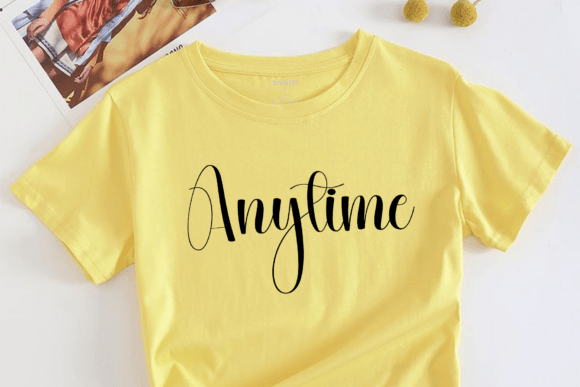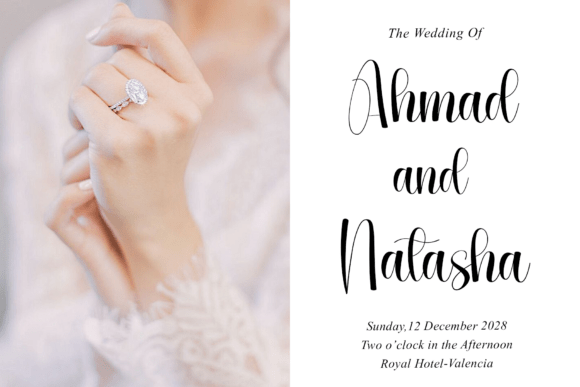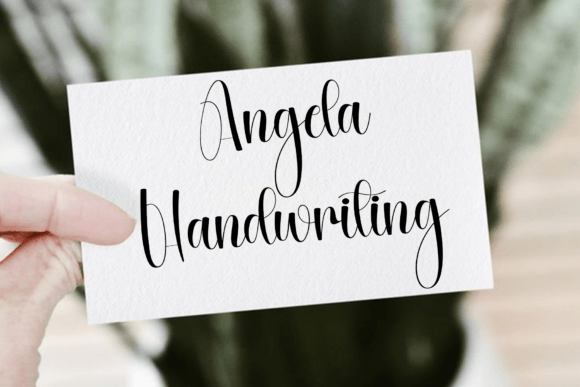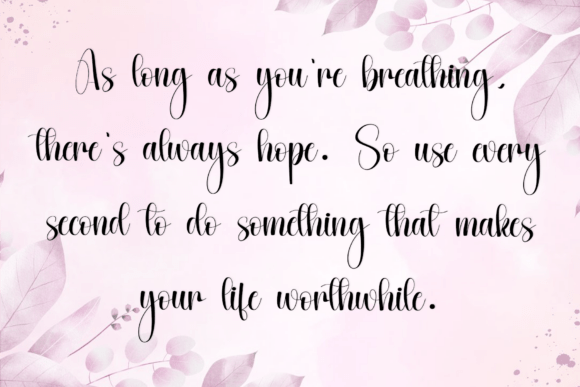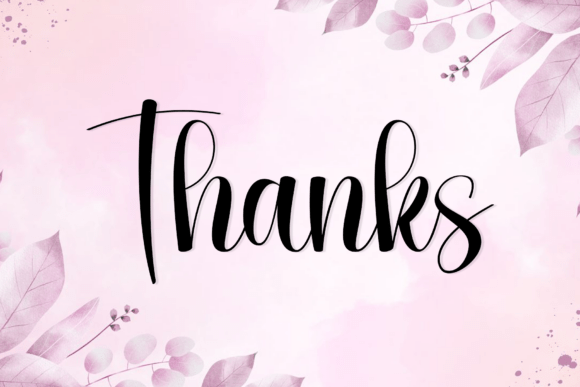
Introducing Activity Font: The Epitome of Elegance and Sophistication
In the realm of typography, few fonts manage to strike a balance between elegance, fluidity, and sophistication. Activity Font is one such marvel that has captured the hearts of designers and crafters alike. This exquisite handwritten script font is tailored for those who seek to add a touch of luxury and refinement to their creations. Whether you’re designing luxury wedding stationery, crafting intimate event branding, or looking to elevate high-end editorial signatures and sophisticated lifestyle photography overlays, Activity Font is the perfect choice.
The Essence of Activity Font
Activity Font embodies the essence of a modern, sophisticated typeface. Its elegant strokes and fluid connections exude a sense of refinement and poise, making it an ideal selection for projects that demand a high level of sophistication. The font’s design is characterized by its flowing lines, harmonious letter spacing, and impeccable attention to detail. Each letterform is meticulously crafted to ensure that the font appears seamless and cohesive, whether used in headings, body text, or decorative elements.
Perfect for Luxury Wedding Stationery
Weddings are a celebration of love and commitment, and the stationery sets the tone for the entire event. With Activity Font, designers can create breathtaking wedding stationery that reflects the couple’s refined taste. From elegant save-the-date cards to sophisticated wedding invitations, this font adds a touch of glamour and sophistication. Its versatility allows it to be used in various design elements, including place cards, menus, and thank-you notes, ensuring a cohesive and luxurious look throughout the wedding stationery suite.
Intimate Event Branding
For intimate events such as baby showers, bridal showers, or anniversaries, Activity Font offers a stylish and understated solution. Its fluid script lines and refined aesthetic make it perfect for creating custom branding elements, including invitations, programs, and signage. The font’s sophisticated demeanor ensures that the event feels exclusive and high-end, leaving a lasting impression on guests.
High-End Editorial Signatures
In the world of editorial design, a distinctive signature can elevate the visual appeal of a publication. Activity Font provides a refined and elegant solution for designers seeking to create high-end editorial signatures. Its luxurious feel and sophisticated appearance make it suitable for fashion magazines, lifestyle publications, and upscale blogs. The font’s versatility allows it to be used in various design contexts, from headings and titles to captions and quotes.
Sophisticated Lifestyle Photography Overlays
For lifestyle photographers, adding a touch of elegance to their images can make them stand out. Activity Font offers a beautiful solution for creating sophisticated overlays that complement the visual narrative. From subtle text overlays to more prominent typographic elements, this font adds a refined and polished touch to photographs. Its fluid lines and harmonious letterforms ensure that the text blends seamlessly with the image, creating a visually stunning effect.
Why Choose Activity Font?
Activity Font stands out from other script fonts due to its exceptional craftsmanship, elegance, and versatility. Here are a few reasons why designers and crafters should consider adding it to their typographic arsenal:
- Elegant and Sophisticated: Activity Font boasts a refined aesthetic that adds a touch of luxury to any design project.
- Versatile: Suitable for a wide range of applications, from wedding stationery to editorial design and lifestyle photography overlays.
- Fluid and Harmonious: The font’s flowing lines and harmonious letter spacing create a visually appealing effect.
- High-Quality: Meticulously crafted with attention to detail, ensuring a polished and refined appearance.
Activity Font is a masterpiece of modern typography, offering designers and crafters an elegant and sophisticated solution for their creative projects. Its fluid lines, harmonious letterforms, and refined aesthetic make it perfect for luxury wedding stationery, intimate event branding, high-end editorial signatures, and sophisticated lifestyle photography overlays. With Activity Font, designers can elevate their creations and add a touch of luxury and refinement that will leave a lasting impression.